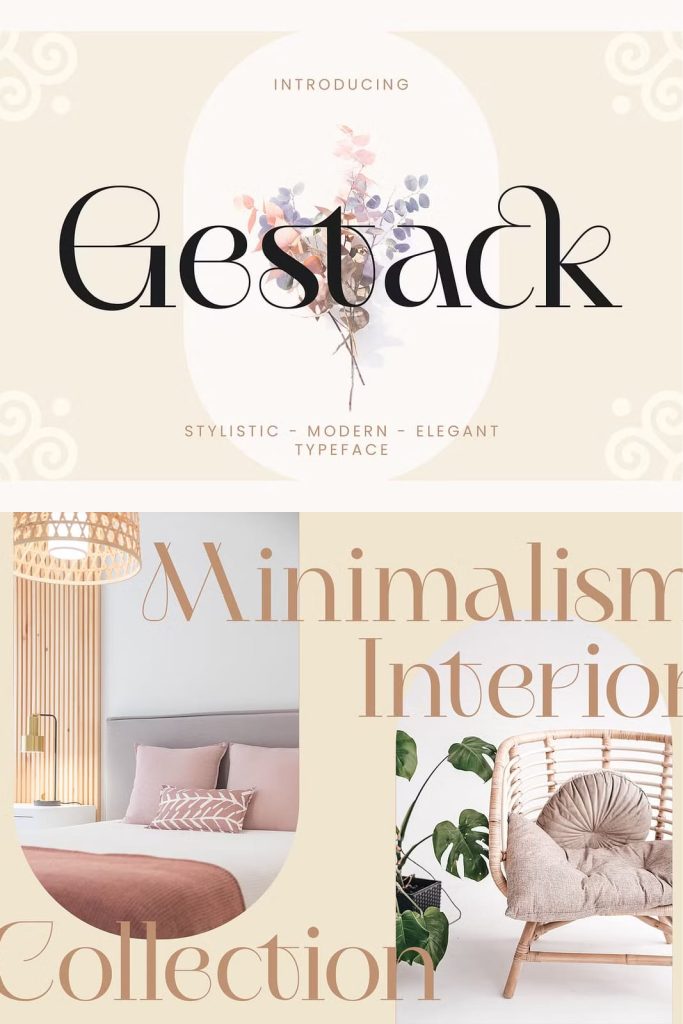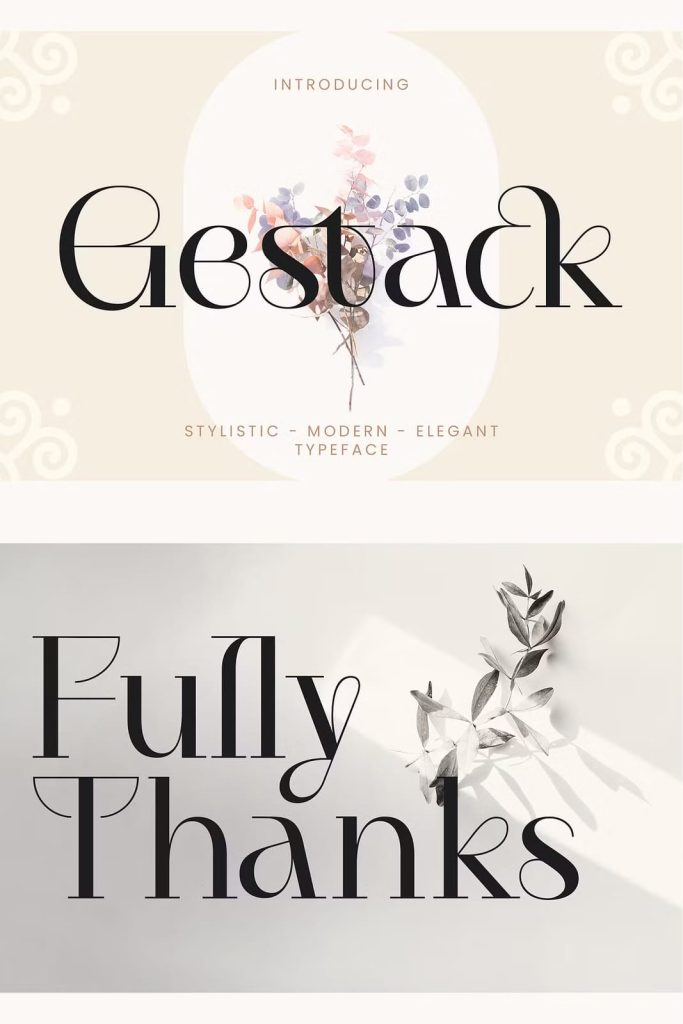
Gestack – Stylish Display Serif is an unique font that uses ligatures to smoothly link letters. Perfect for adding a unique twist to word-mark logos, monograms or pull quotes.
Gestack has 11 ligatures as well as numbers and punctuation making it super fantastic. Ligature can be turned off if required standard writing needs. What’s Included :